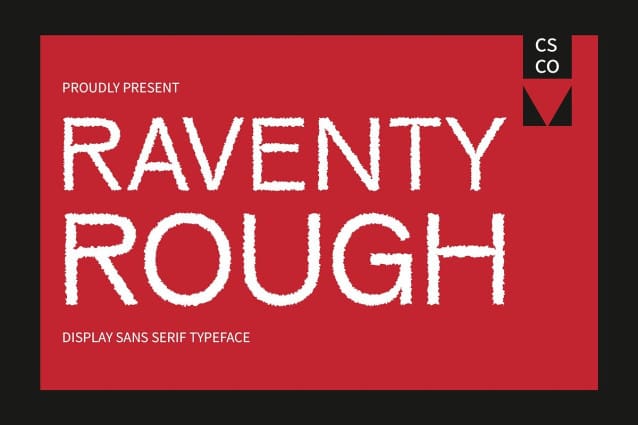
Raventy Rough Font
Raventy Rough Font is a display sans-serif font that combines modernity with a rough aesthetic. Its unique design adds a contemporary edge to your projects while maintaining a raw, rough vibe that commands attention.
Ideal for Impactful Displays Designed to make a statement, Raventy Rough is perfect for headlines, banners, and other display purposes. Its modern and rough aesthetic ensures that your message is seen and remembered.
Versatile and Striking Despite its rough appearance, Raventy Rough is versatile and striking. Its sans-serif design makes it suitable for a wide range of projects, from branding to editorial design, where a bold and impactful font is needed to convey a message with authority.
Perfect for Adding Depth Raventy Rough is perfect for projects that require a font with depth. Whether you’re designing a poster, logo, or website, this font is sure to add a unique and memorable touch to your designs.